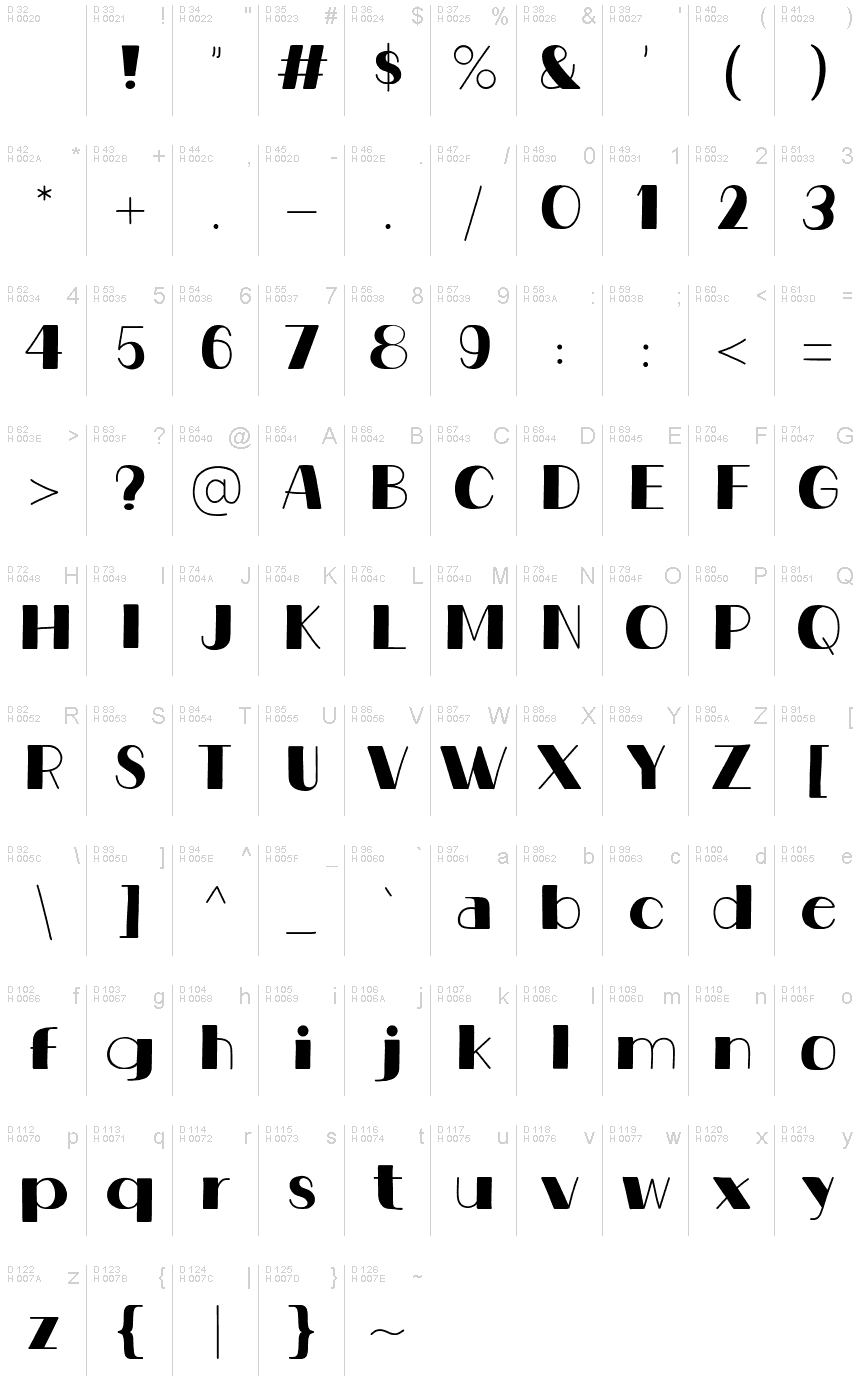
Spicy Pasta
Spicy Pasta, a bold and captivating display font designed by Khurasan, adds a dash of flavor to any creative project. With its semi-expanded width, this typeface commands attention and exudes confidence.
Perfect for menus, food packaging, or restaurant branding projects, Spicy Pasta injects a touch of playfulness while maintaining its boldness. Its charismatic letters captivate the eye and leave a lasting impression on logos or headlines.
Let your imagination run wild with Spicy Pasta as it brings zest and vibrancy to your design endeavors.